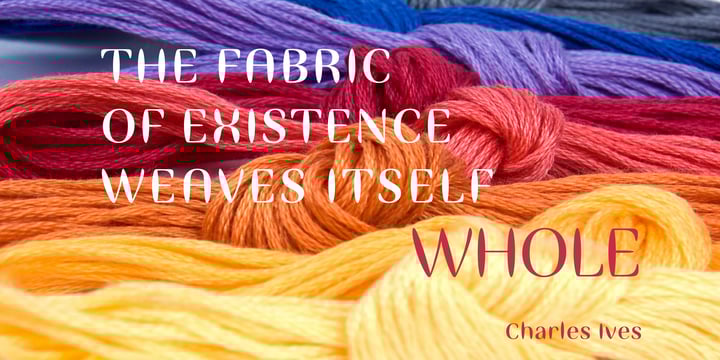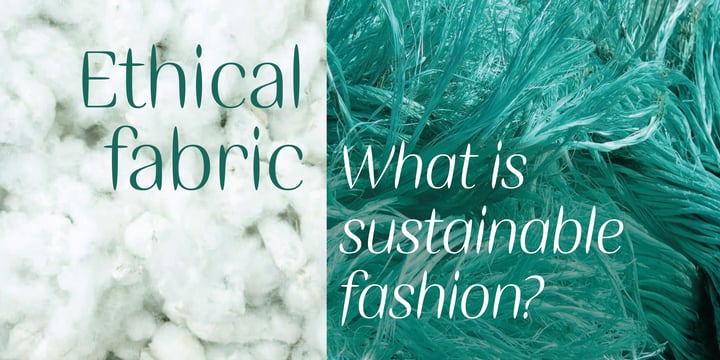
About ITC Ellipse Neo Font Family
The Typorium presents a new optimized and enriched version of ITC Ellipse which first appeared in 1996 in the International Typeface Corporation typeface library. ITC Ellipse Neo design has been lightly modified. Three weights have been added (light, Medium, Extra Bold, including Italics) to the original Regular and Bold styles.
ITC Ellipse Neo is both modern and classic. Modern in the unusual shape based on the geometric ellipse form. And classic in the structure of some letters like the lower cases c, e, g, o, s. These letters alone could come from a traditional typeface, but they fit perfectly with the atypical rest of the alphabet giving it a present-day and traditional mix. Furthermore, the ellipse shape fits naturally in the italic styles, giving the font an organic and fluid feeling.
ITC Ellipse Neo offers OpenType features such as alternate characters for upper and lower case, and an extended accented character set to support many languages. Five weights have been created for each style to offer a wide range of graphic possibilities in a tidy digital footprint.
Le Typorium présente une nouvelle version optimisée et enrichie d'ITC Ellipse qui est apparue pour la première fois en 1996 dans la bibliothèque de caractères de l'International Typeface Corporation. Le design de ITC Ellipse Neo a été légèrement modifié. Trois graisses ont été ajoutées (léger, moyen, extra gras, y compris les italiques) aux styles originaux Regular et Bold.
ITC Ellipse Neo est à la fois moderne et classique. Moderne dans le dessin inhabituel basé sur la forme géométrique de l’ellipse. Et classique dans la structure de certaines lettres comme les minuscules c, e, g, o, s. Ces lettres pourraient provenir d'une police de caractères traditionnelle, mais elles s'intègrent parfaitement avec le reste de l'alphabet plus insolite en lui donnant un mélange de modernité et de tradition. De plus, la forme de l'ellipse s'intègre naturellement dans les styles italiques, donnant à la police une sensation organique et fluide.
ITC Ellipse Neo offre des fonctionnalités OpenType telles que des caractères alternatifs pour les capitales et les bas de casse, et un jeu de caractères accentués étendu pour prendre en charge de nombreuses langues. Cinq graisses ont été créés pour chaque style afin d'offrir un large éventail de possibilités graphiques pour une empreinte numérique rigoureuse.
ITC Ellipse Neo